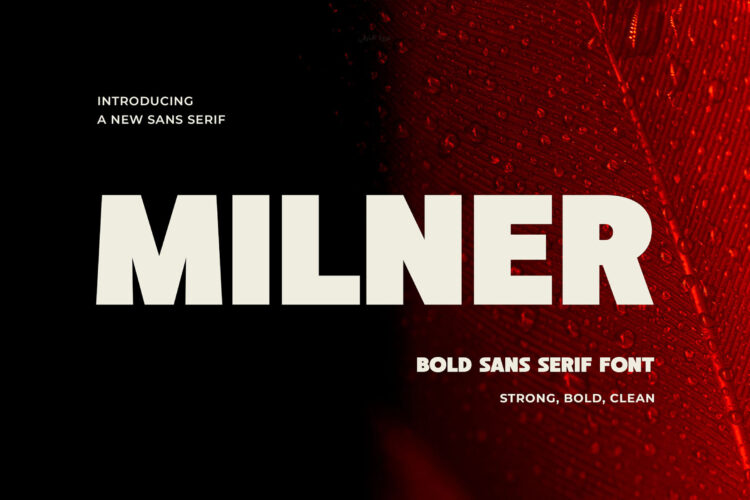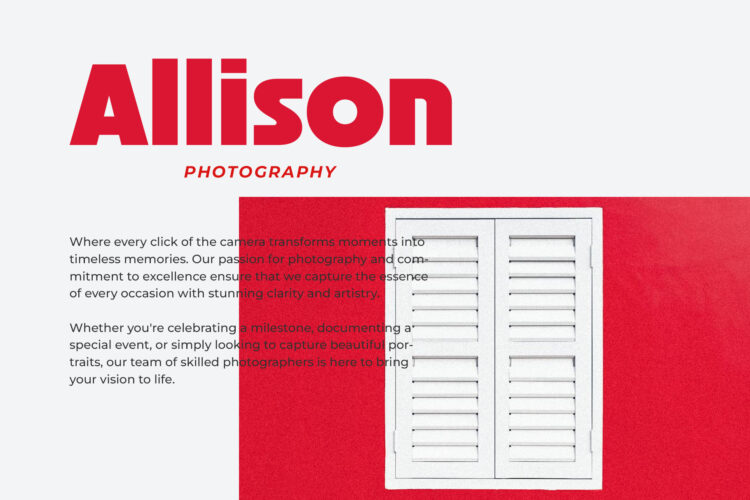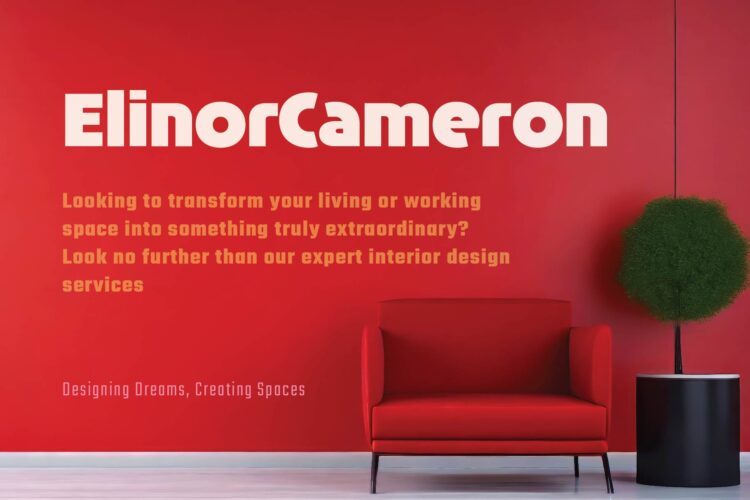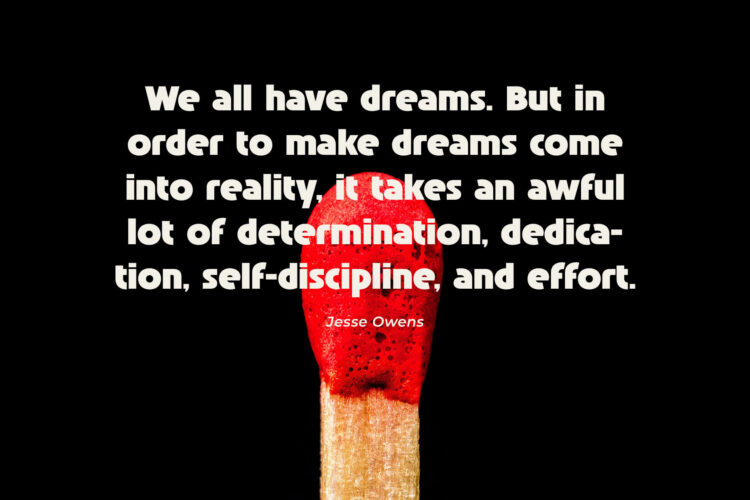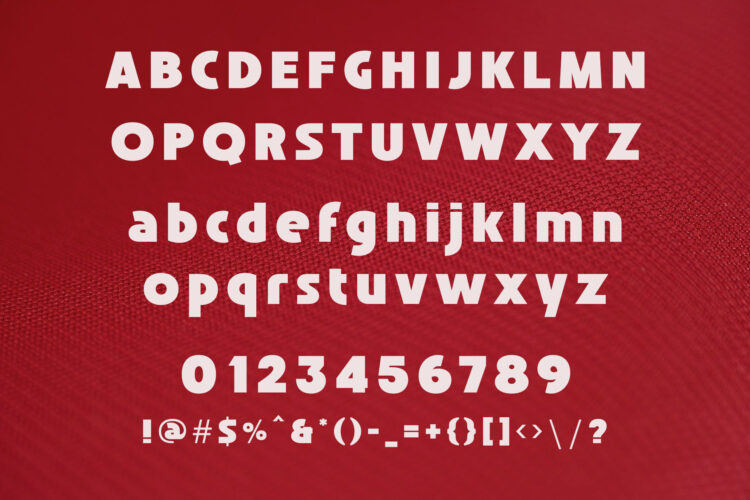
Introducing Milner – Modern Bold Sans Serif.
Milner is a modern and simple font, best used as a display for headings, logos, branding, magazines, product packaging and invitations.